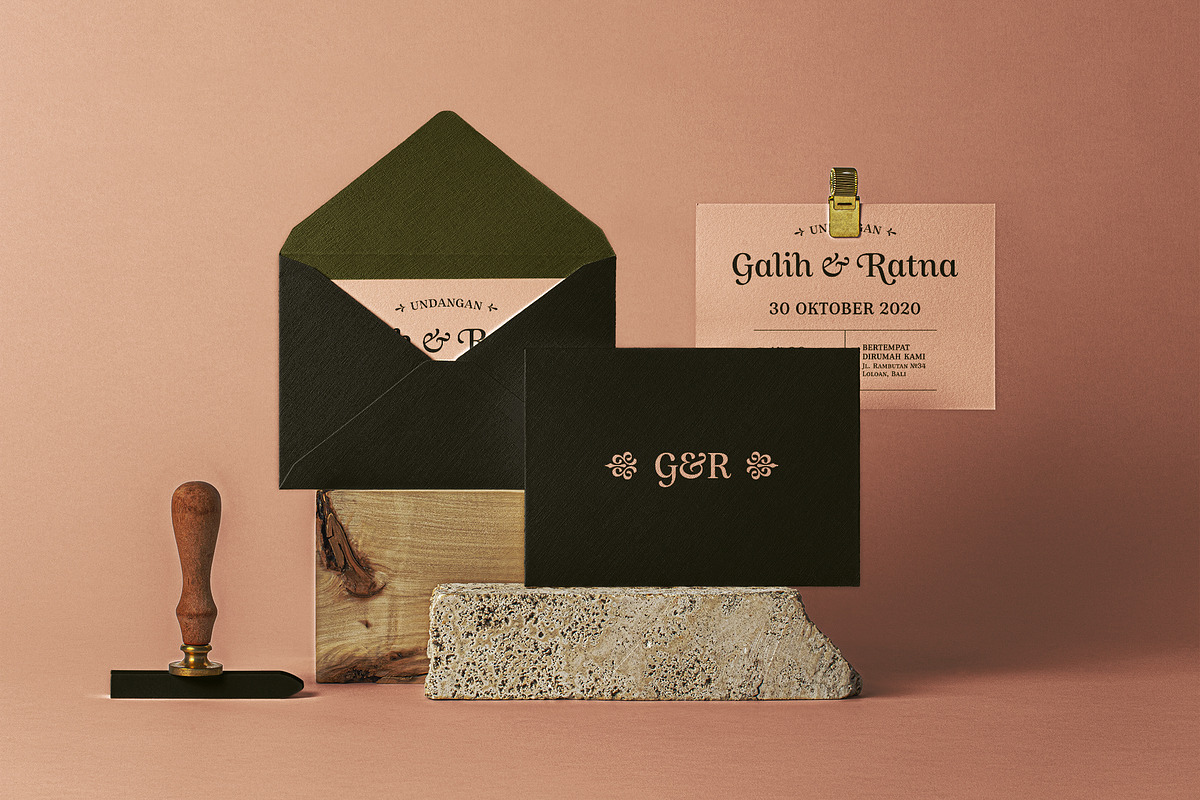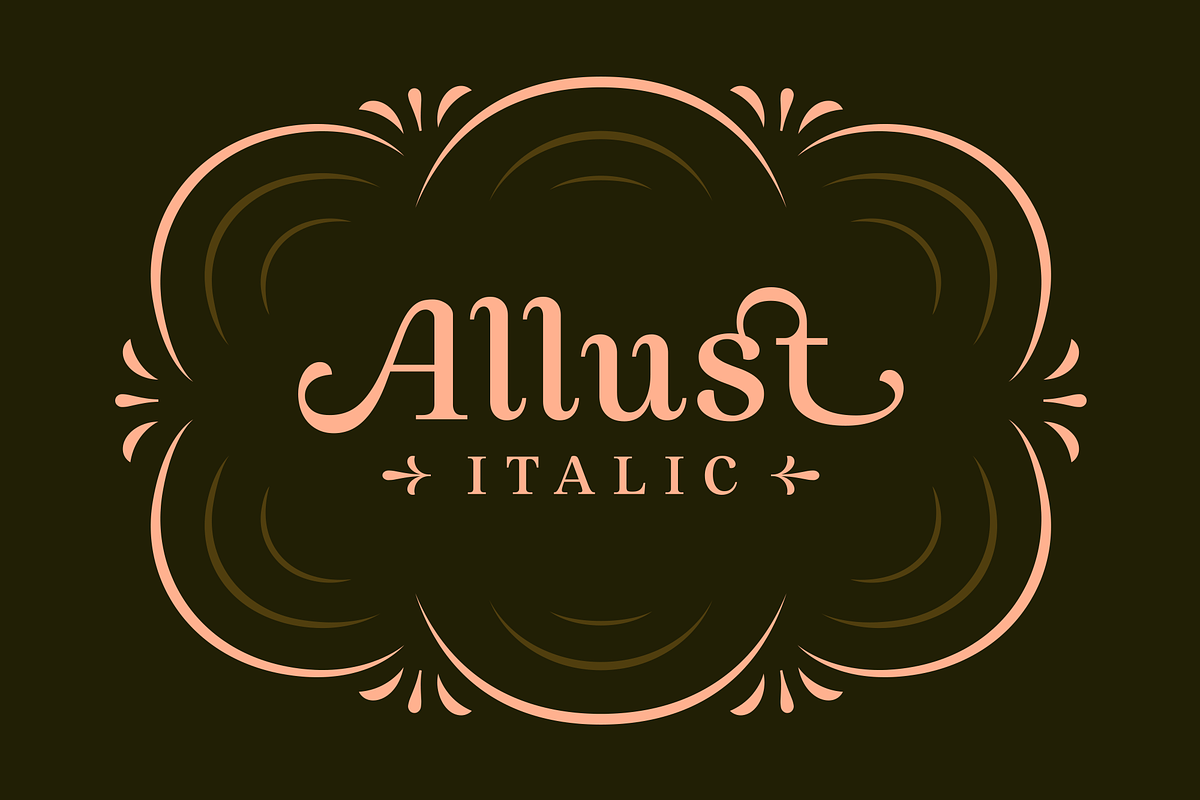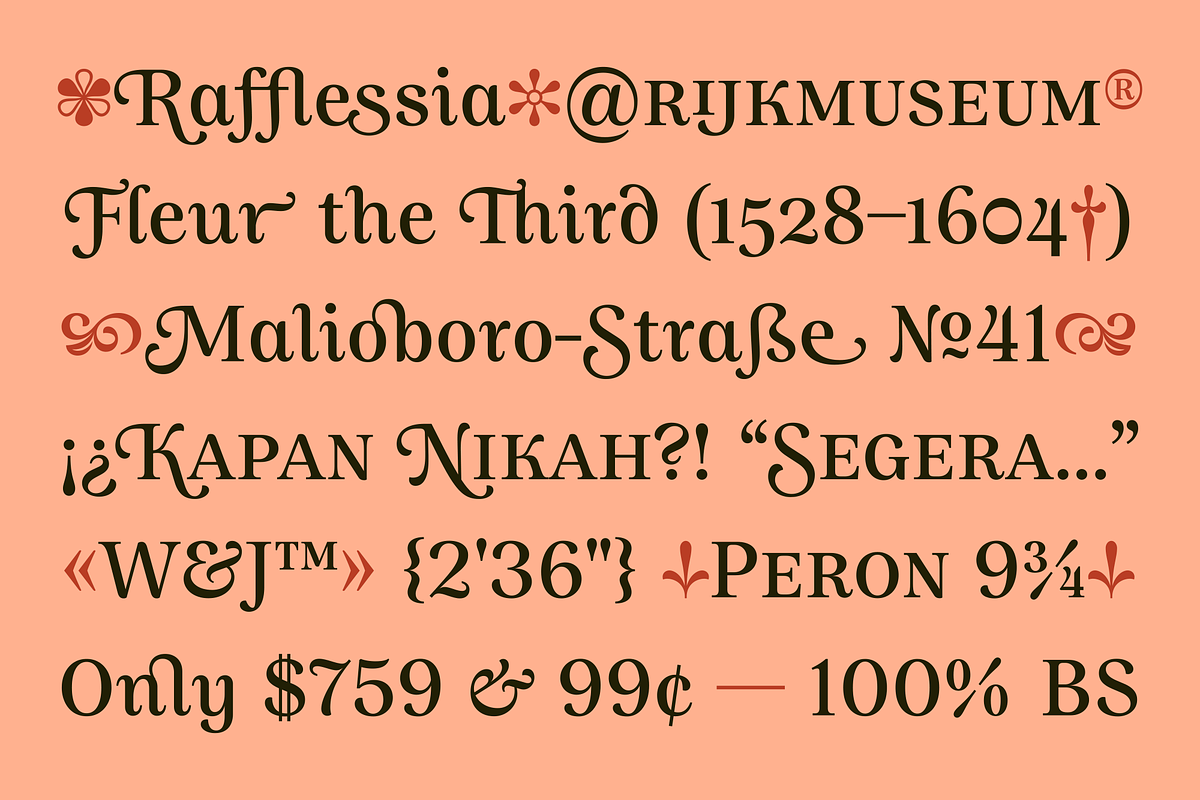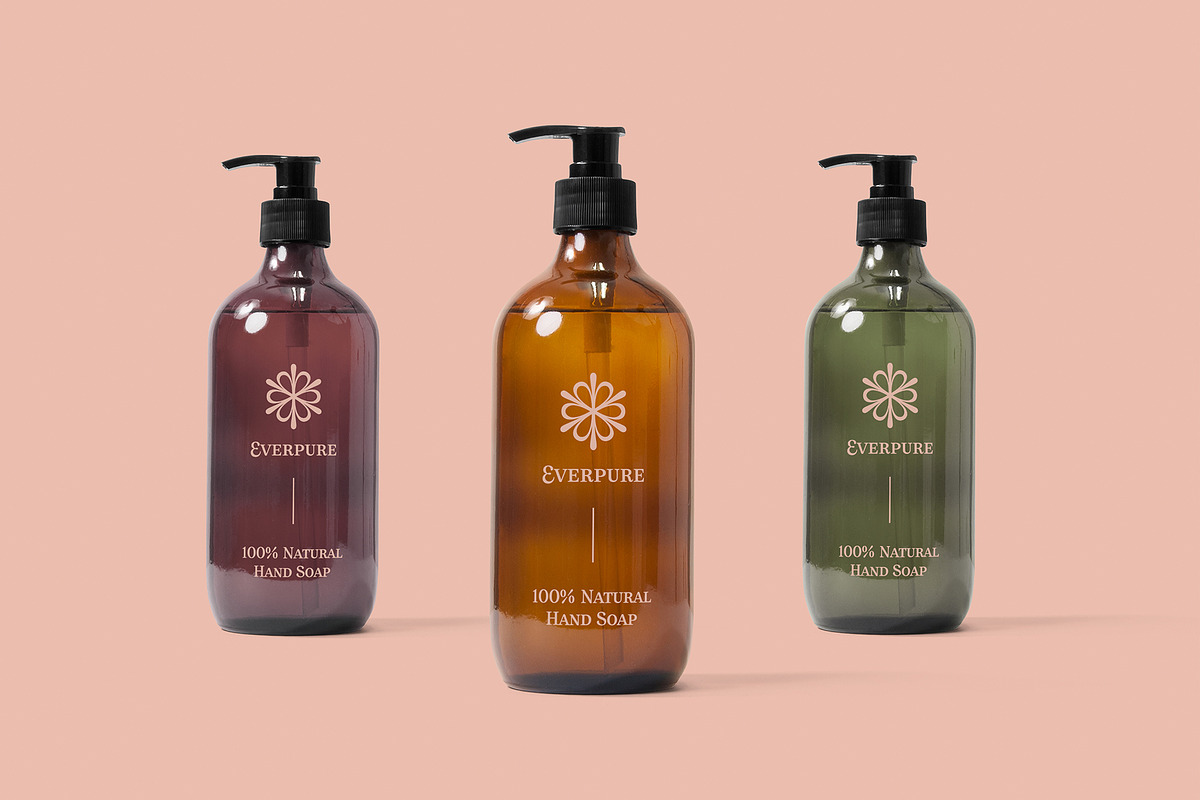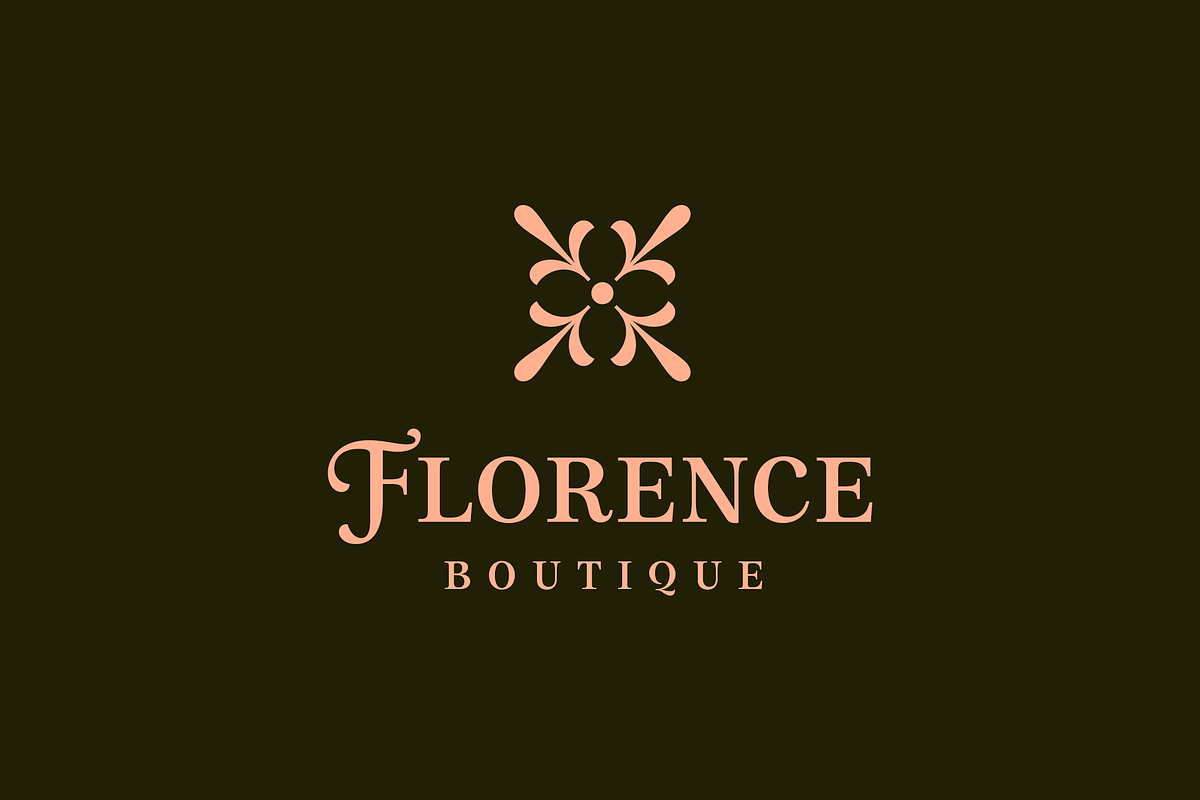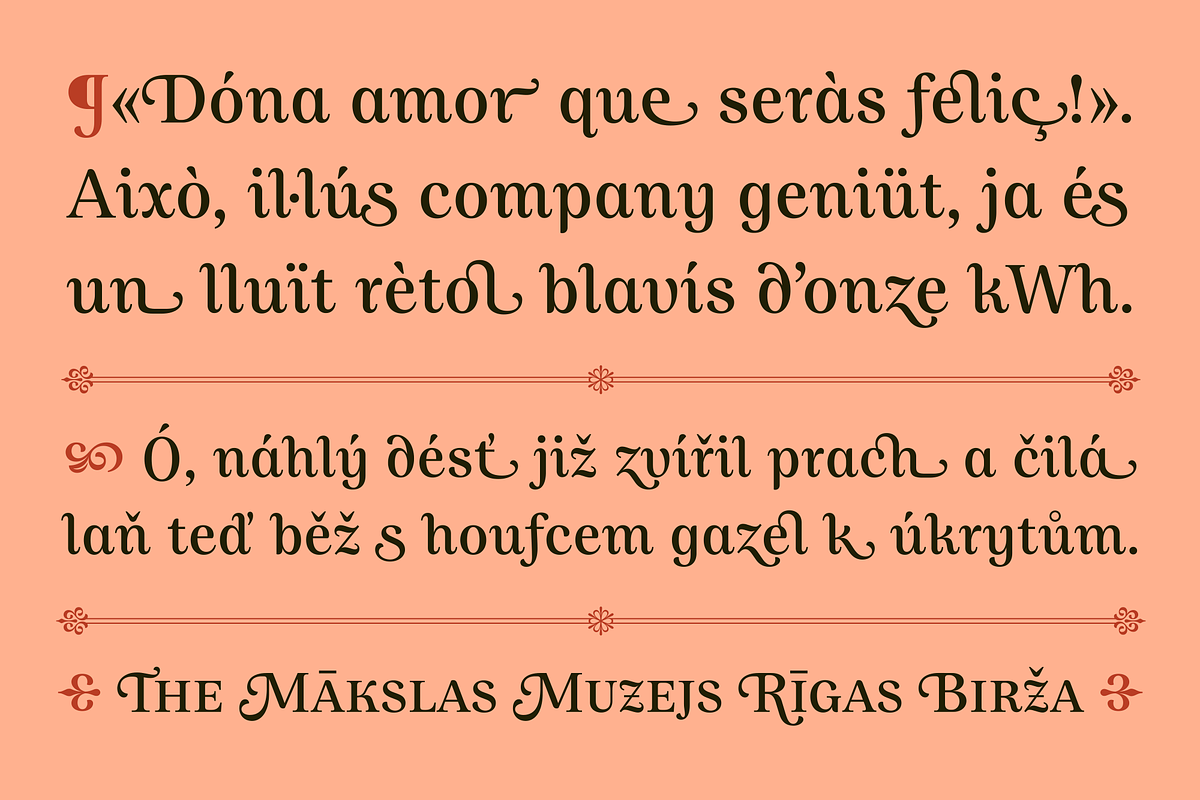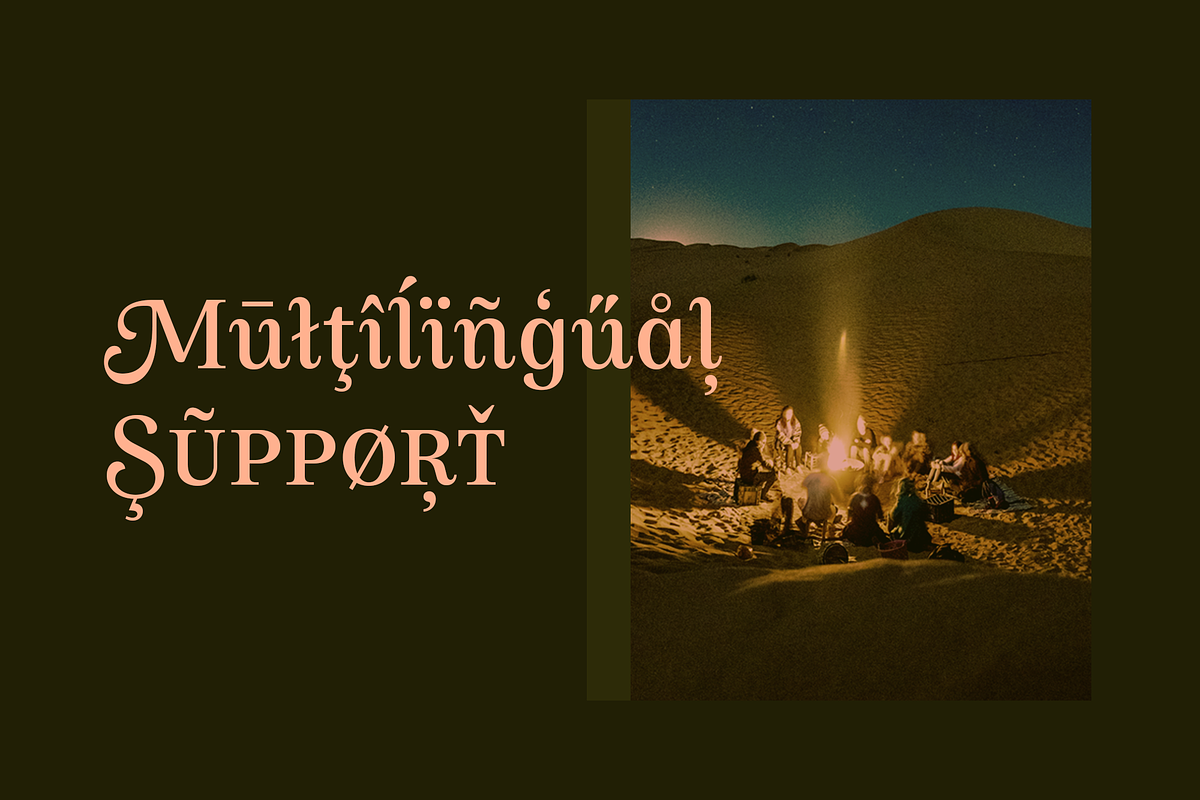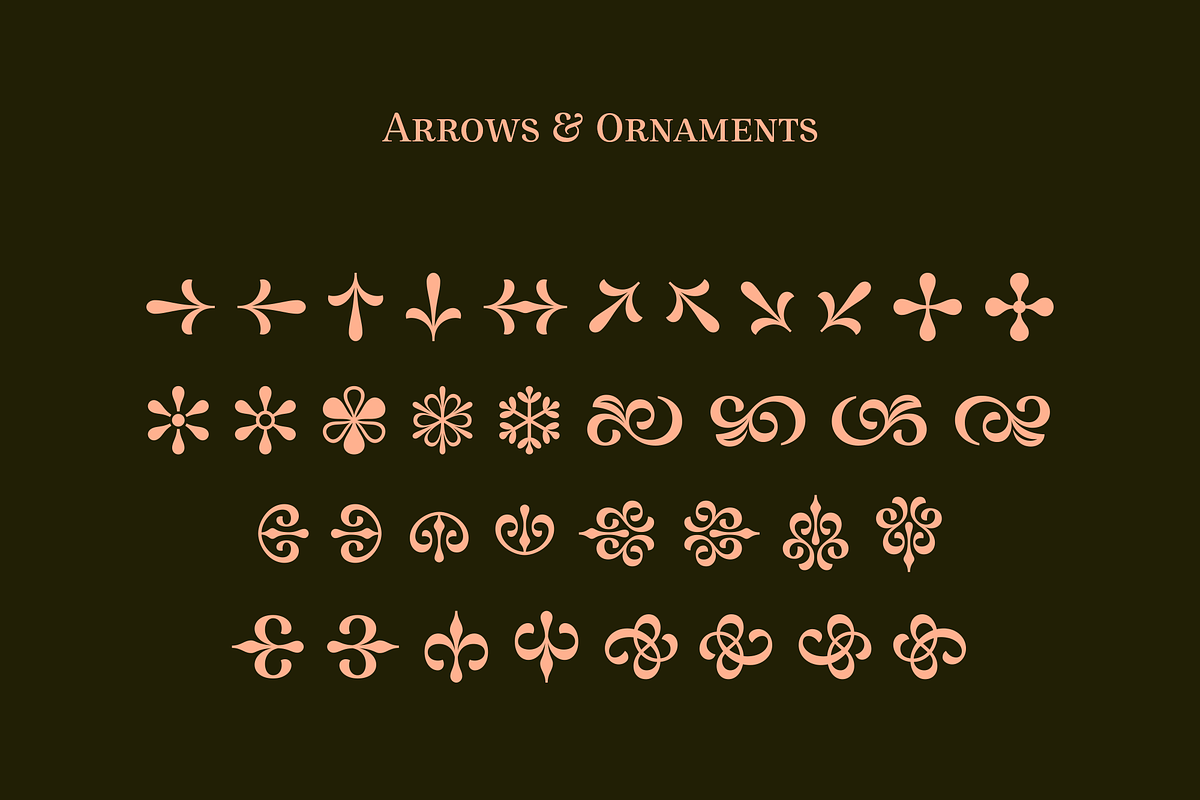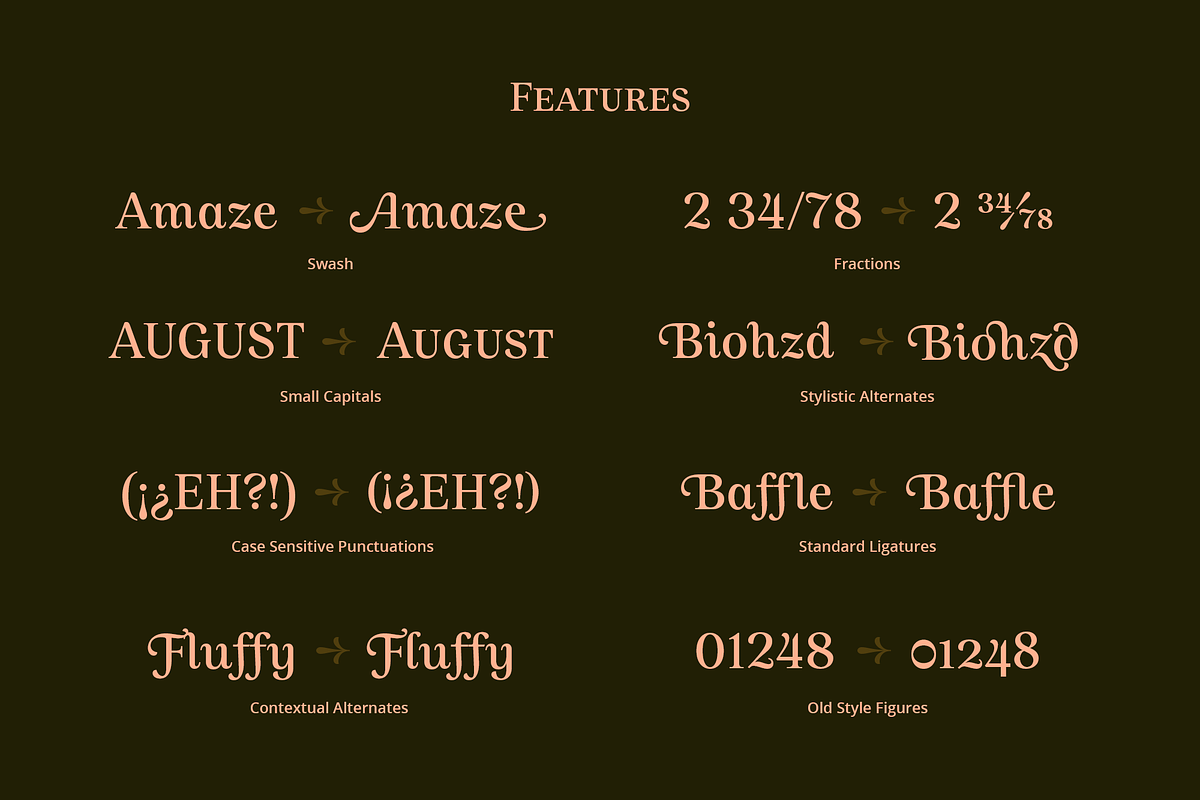
Allust Italic Font
Allust is an italic font that is inspired by italic version some old-style serif typefaces like Caslon and Garamond, and an evolution of my poor understanding of italic letterform. The first draw of this font is started back in 2016 and the idea was to make an upright italic font inspired by italic calligraphy. Perfectionism kept me away from finishing this font. Each year, I tried to rebuild the font with better understanding of the letterform but still keeping some unique characteristics of my poor understanding back then, but never satisfied. And finally, this year I promised myself to just finish the goddamn font and embrace whatever it is going to looks like. And here it is. FINALLY!